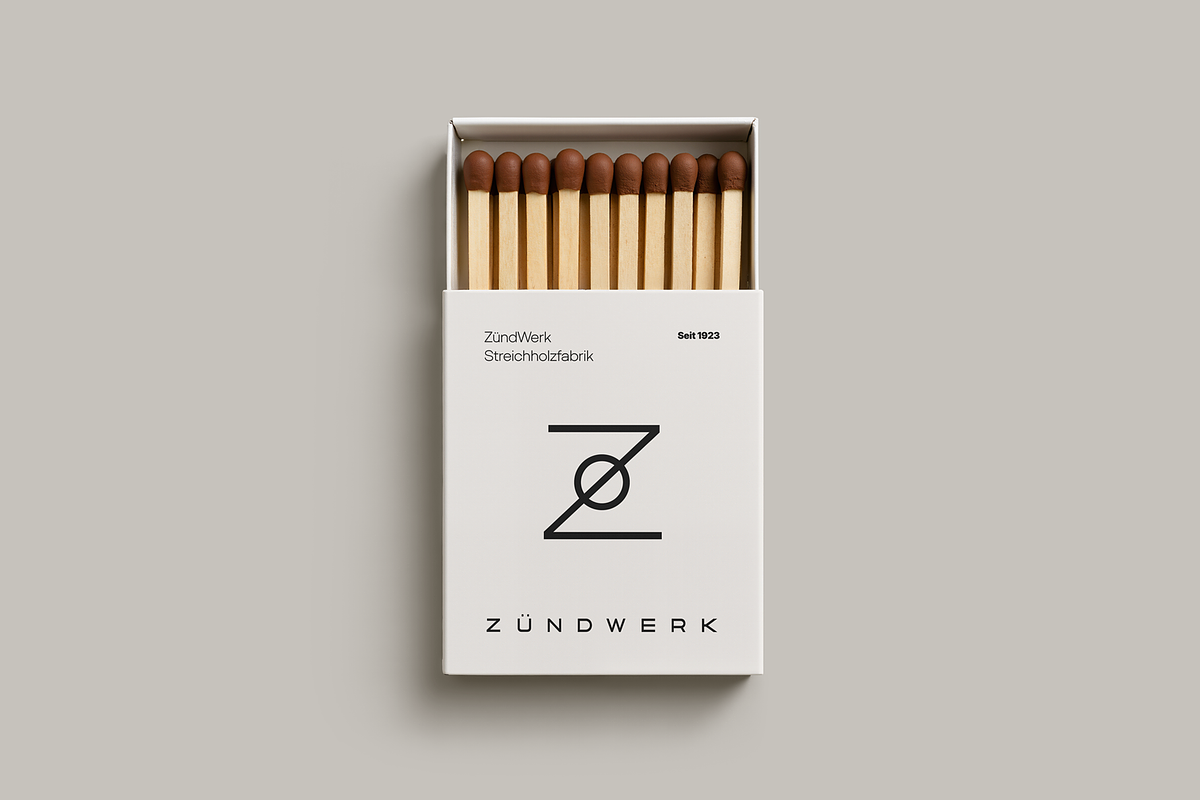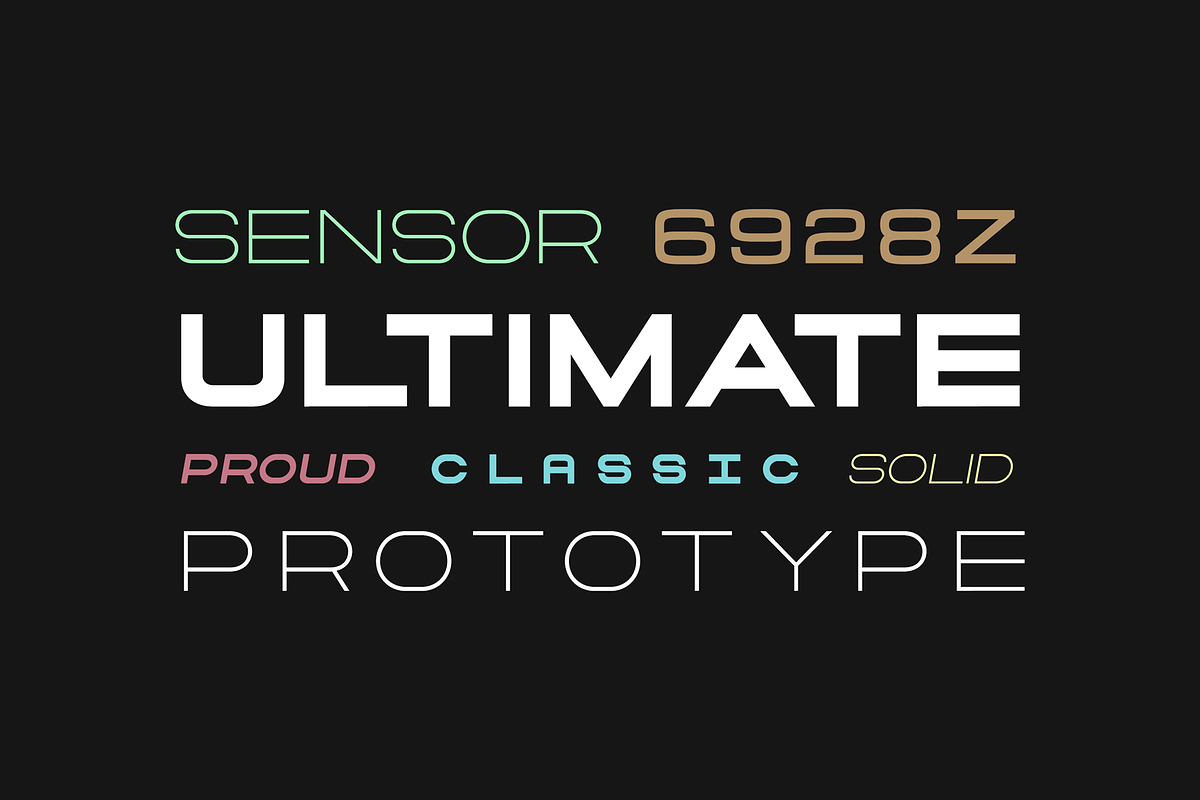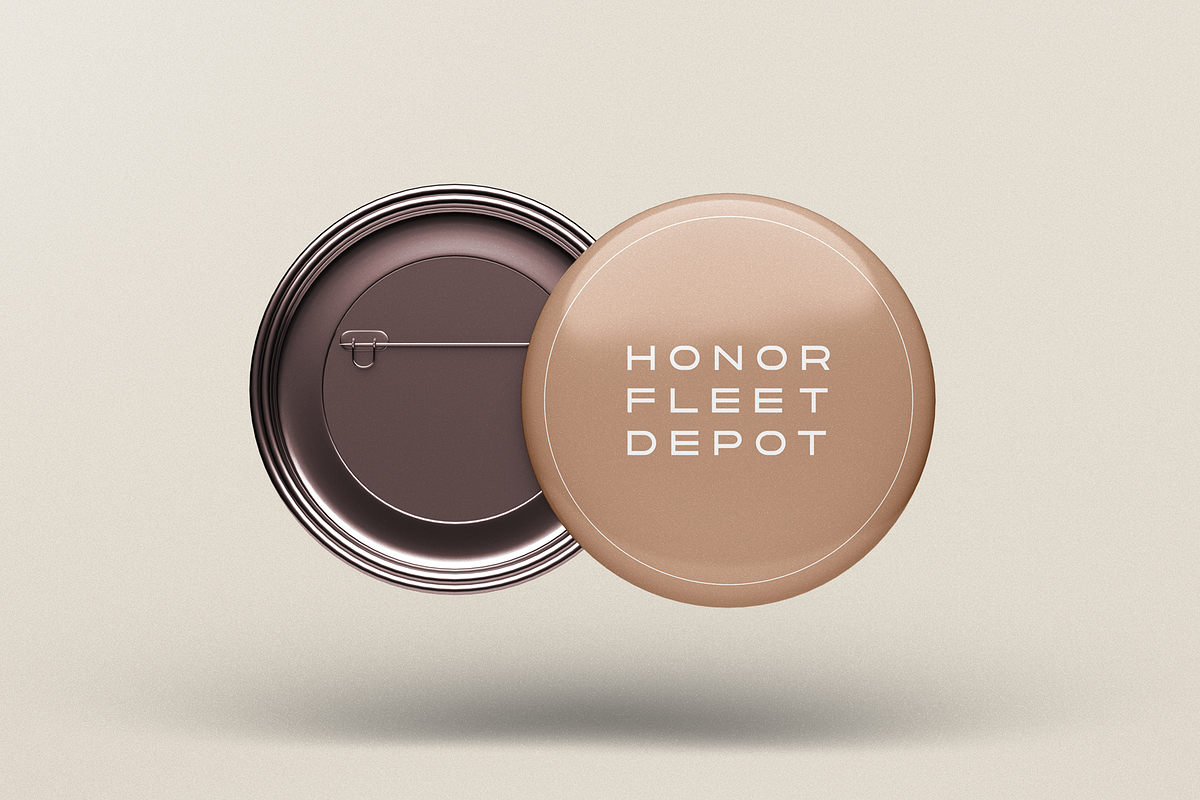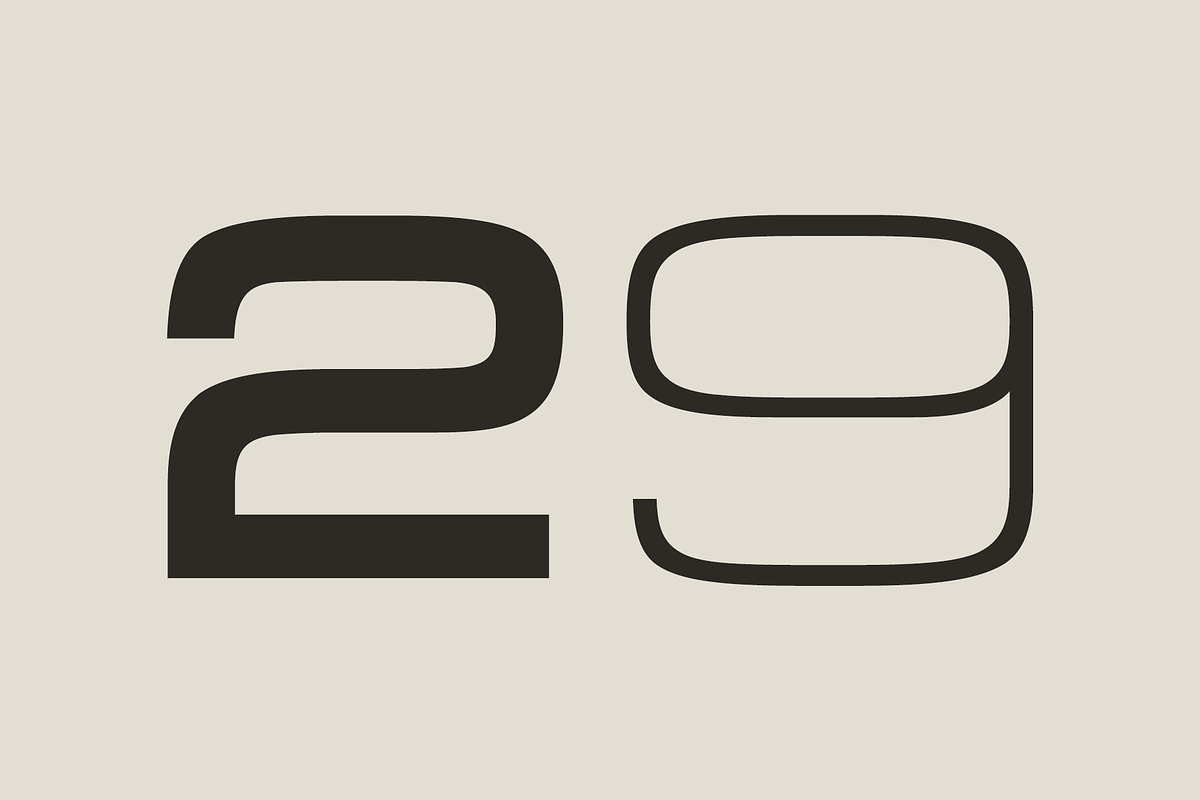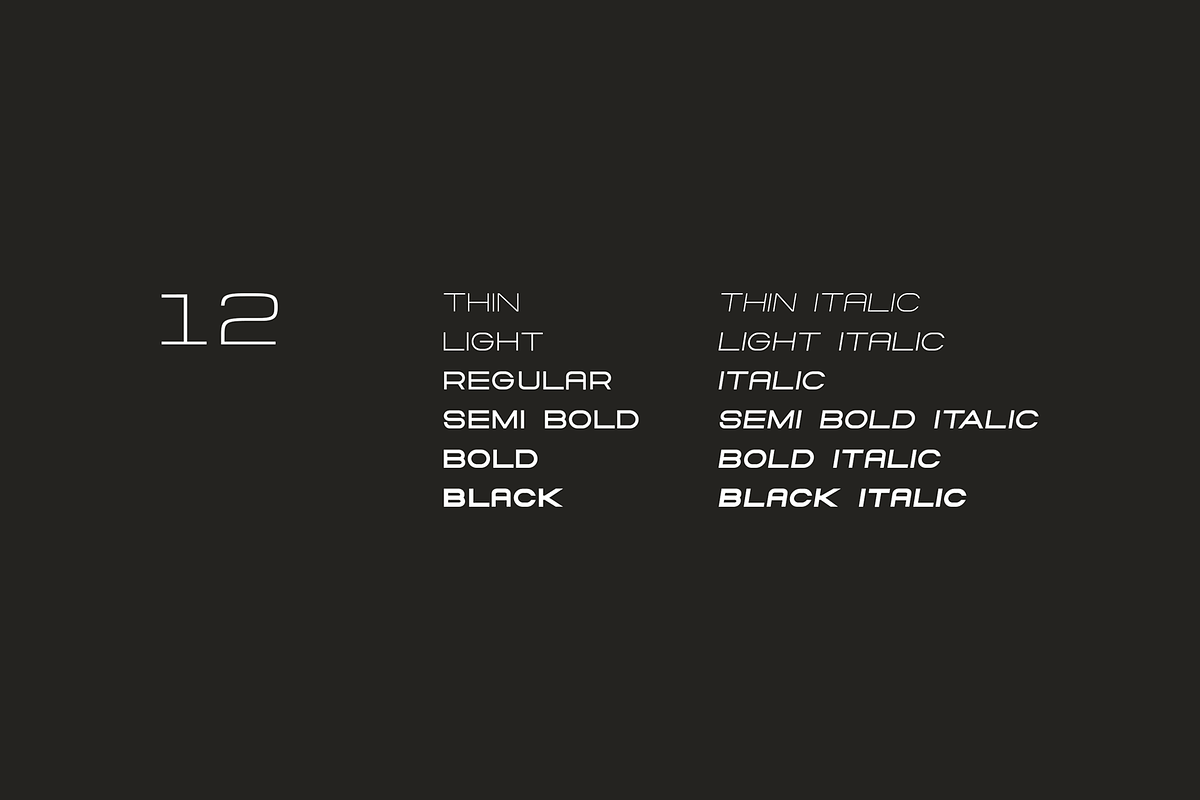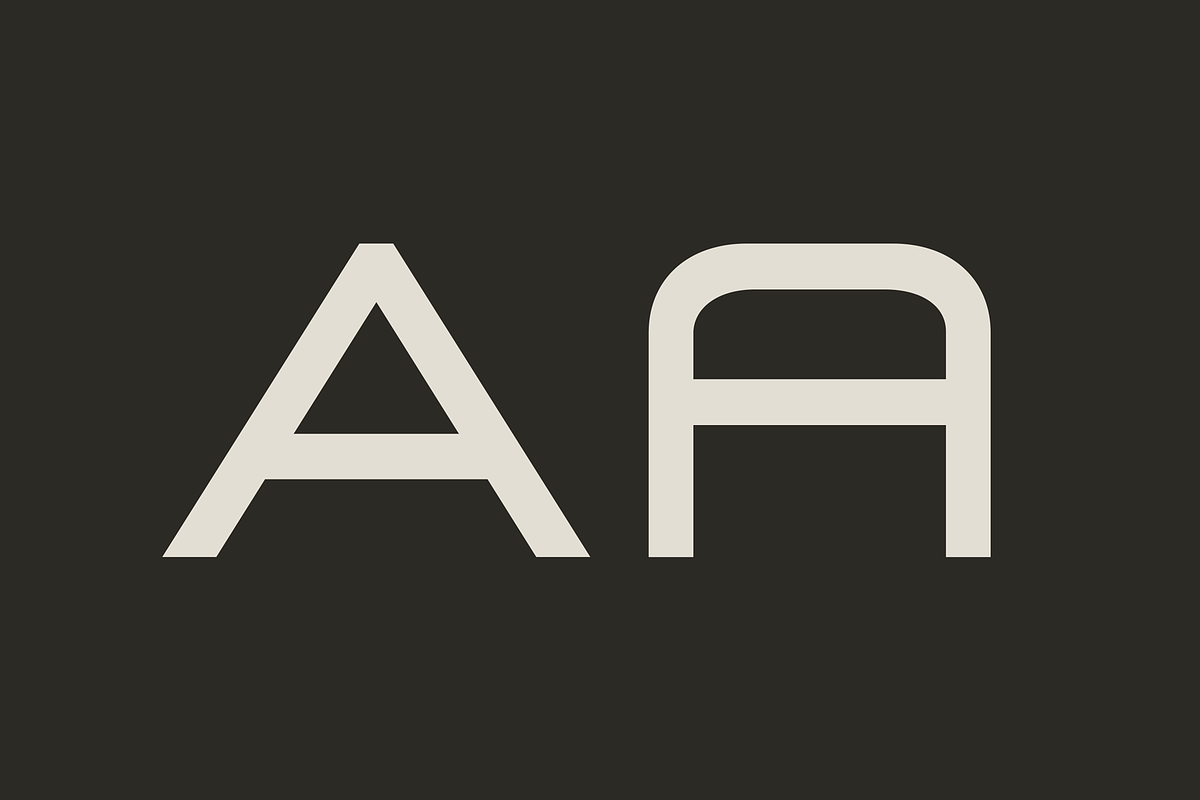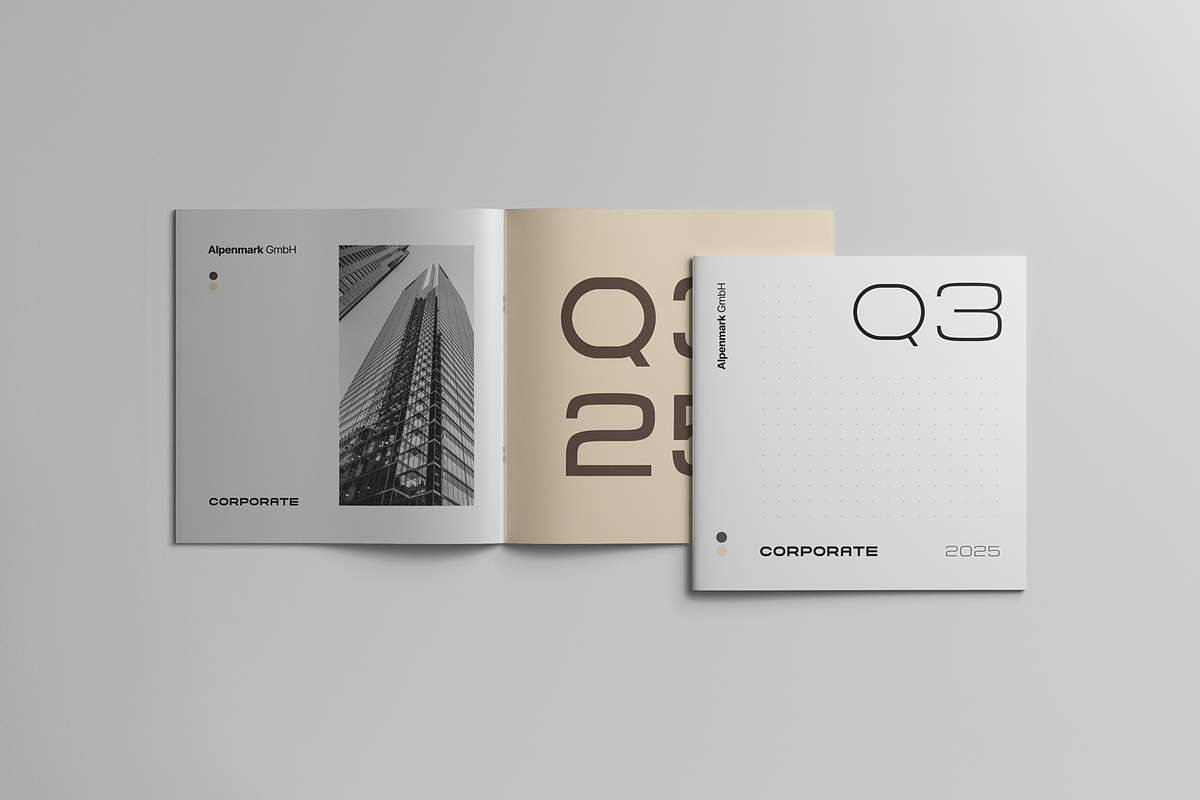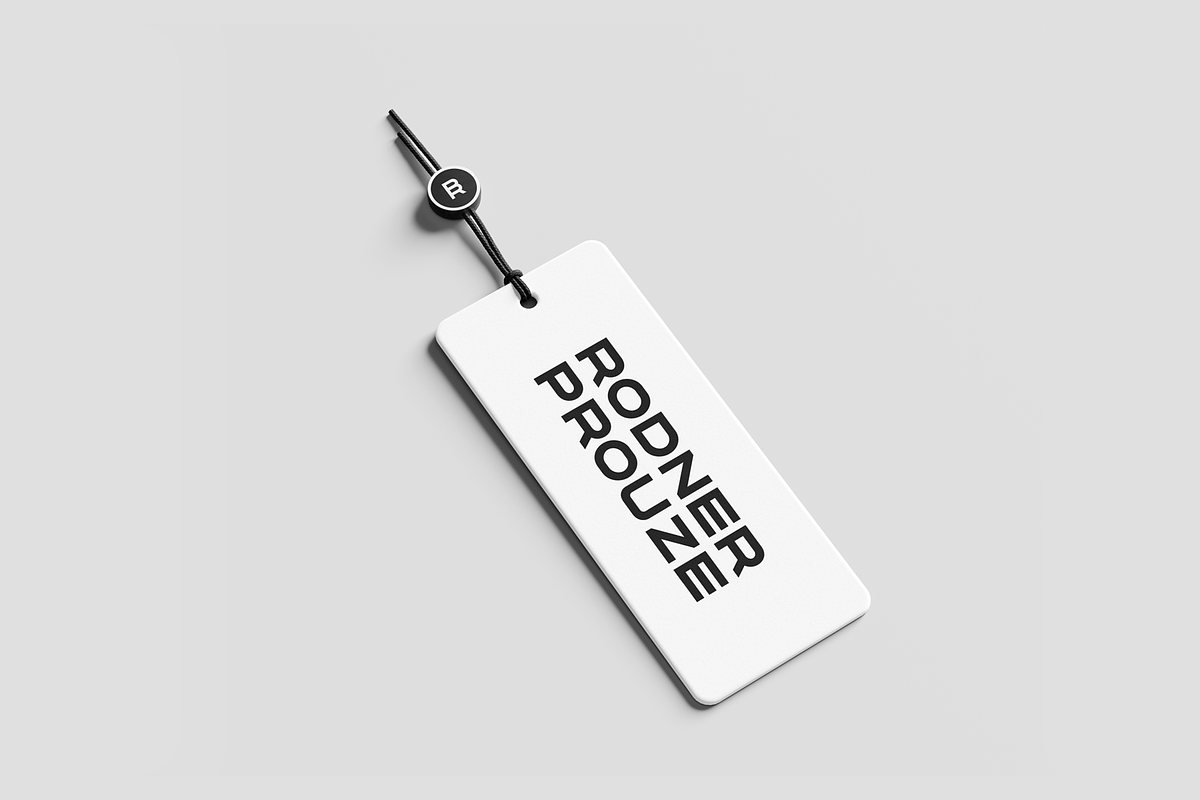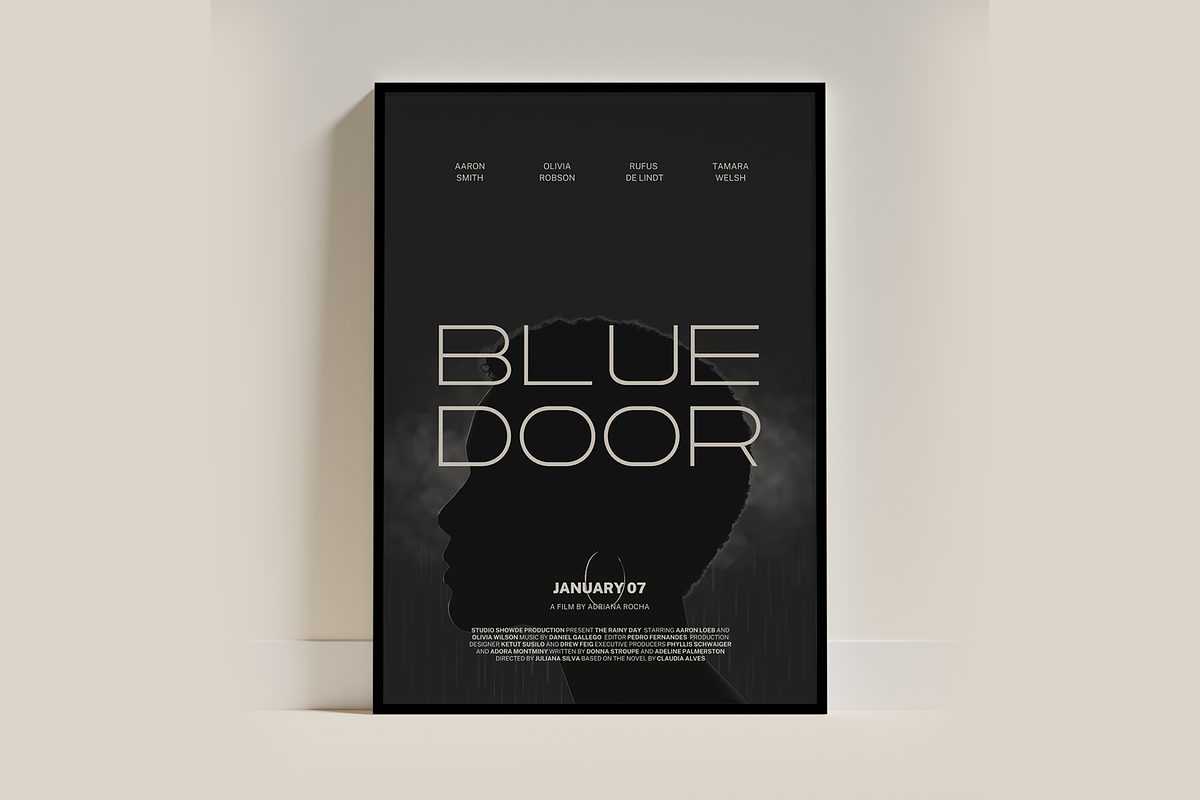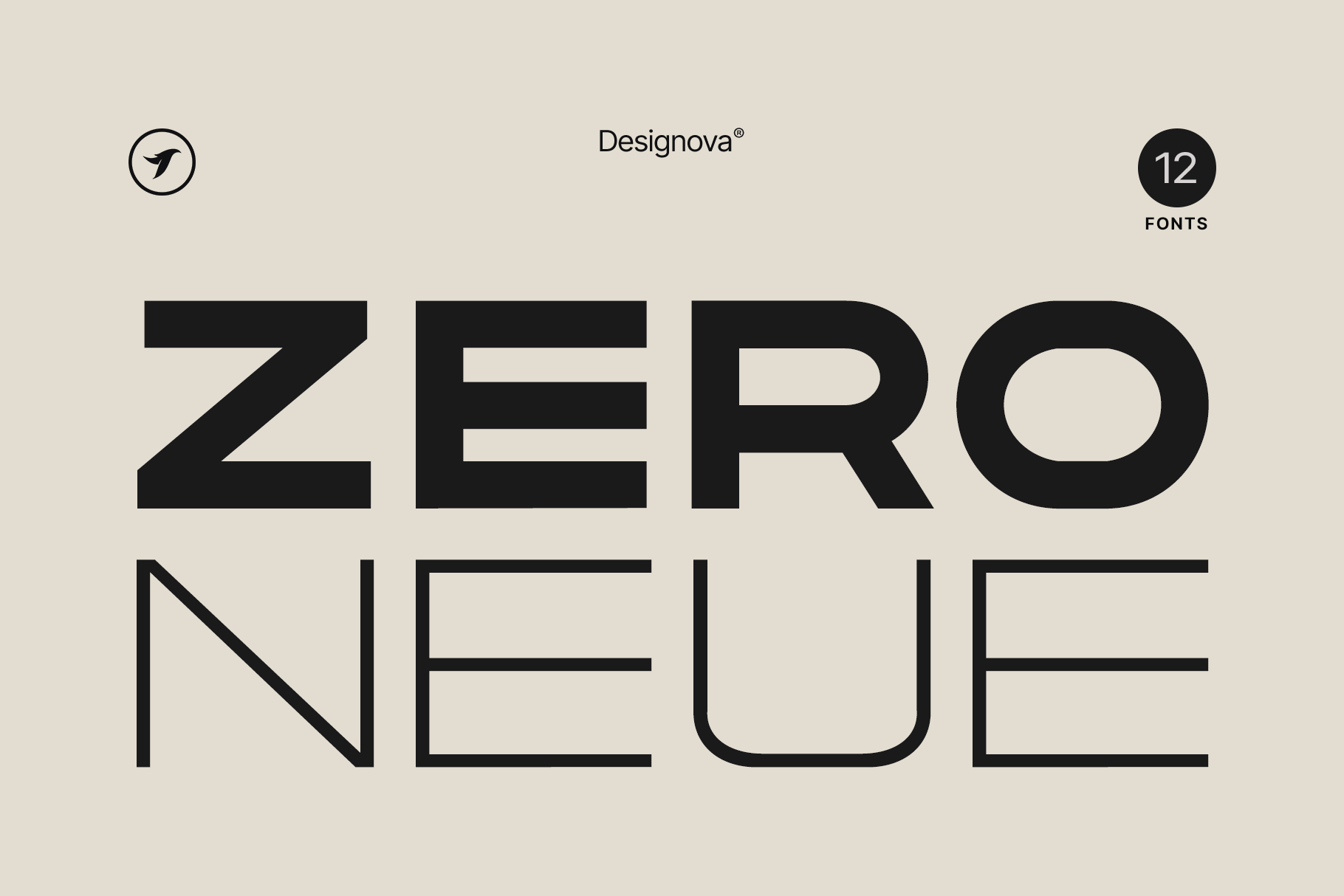
ZERO NEUE - The Headline Font Family
ABOUT THE FONT FAMILY:
ZERO NEUE is a modern, minimal font family ideal for branding, logotypes, headlines, corporate identities, and marketing materials. It is suitable for both web and print formats. This all-caps typeface features efficient letter spacing options that provide endless possibilities for contemporary and minimalist designs such as logos, headlines, and identities.
The versatility of this font family allows for a wide range of modern and minimalist creations. To understand its capabilities in branding and marketing material design, please refer to the included demo graphics.
The ZERO NEUE font family consists of 12 fonts, including 6 upright weights: THIN, LIGHT, REGULAR, SEMIBOLD, BOLD, and BLACK, along with italic versions of each weight. Each weight includes extended language support, covering both Western European and Central European character sets, with a total of 346 glyphs included.
ZERO NEUE font family includes a collection of 12 fonts in total, with seven upright weights and Italic equivalents of all seven weights as follows:
Thin
Thin Italic
Light
Light Italic
Italic
SemiBold
SemiBold Italic
Bold
Bold Italic
Black
Black Italic
346 GLYPHS INCLUDED:
Handcrafted and designed with powerful OpenType features in mind, each weight includes extended language support with Western European, Central European, and South Eastern European sets. A total of 346 glyphs are available.